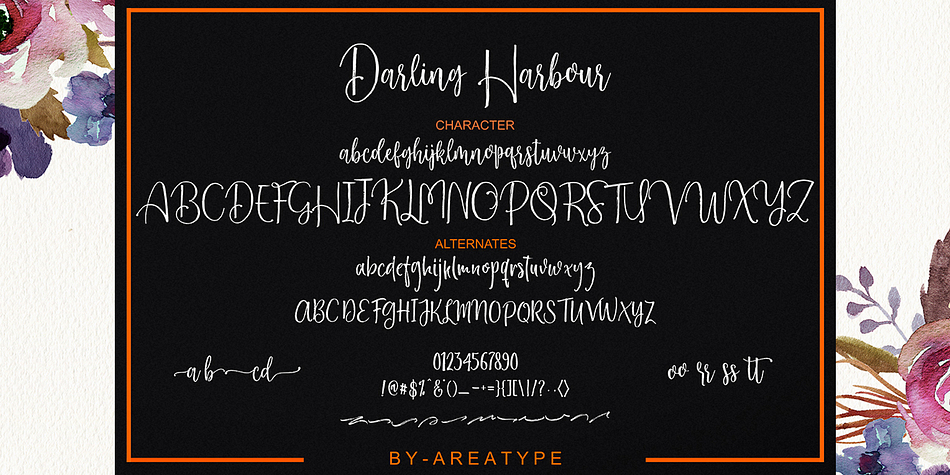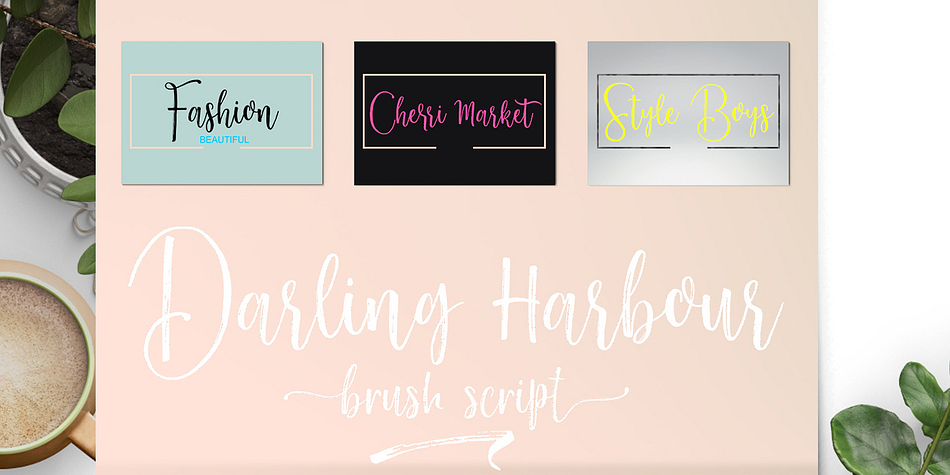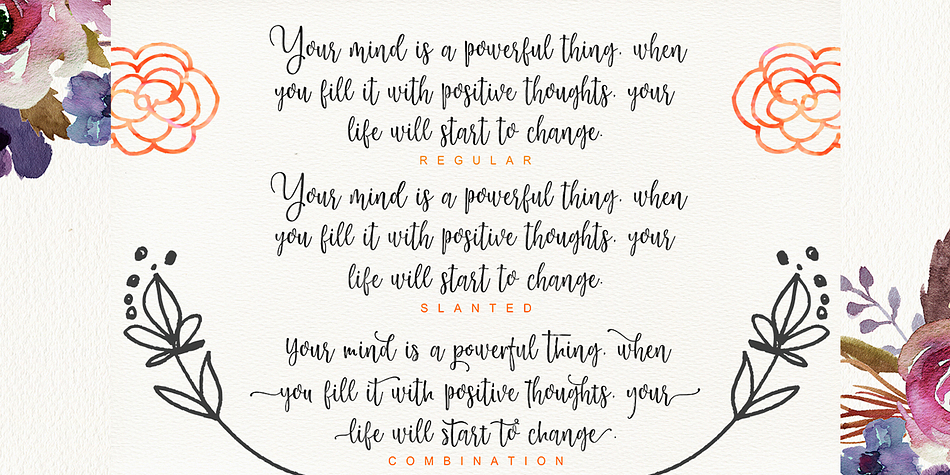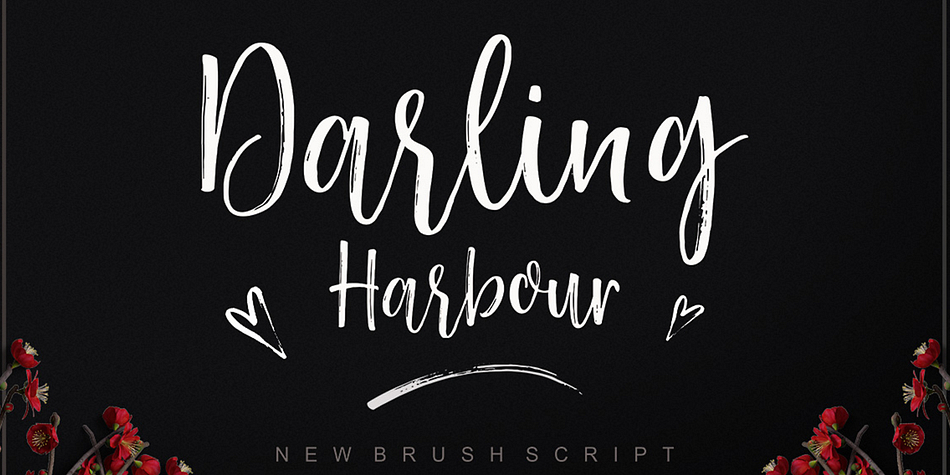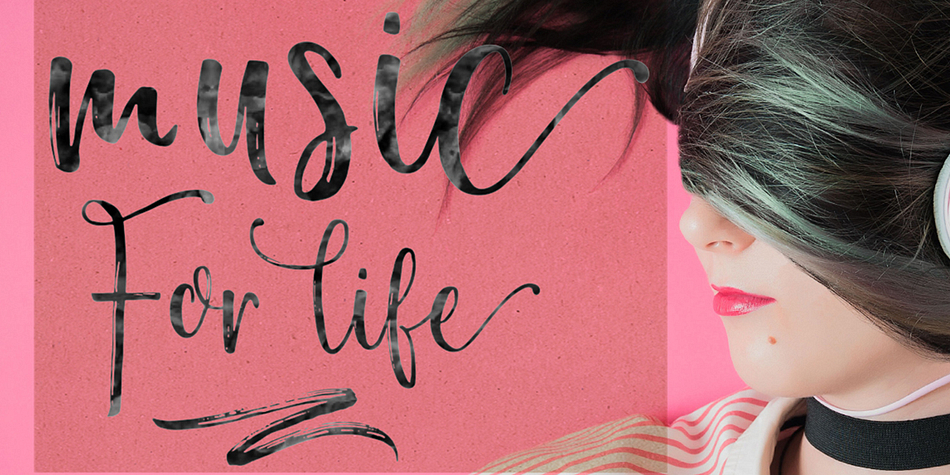
Darling Harbour is a modern calligraphy, script and dingbat font family. This typeface has three styles and was published by Area Type Studio.
Darling Harbour Brush is a modern calligraphy font, with characters that dance along the baseline and elegant touch. Opentype features with stylistic alternates, ligatures and multiple language support.
It can be used for various purposes.such as logos, wedding invitation, heading, t-shirt, letterhead, signage, lable, news, posters, badges etc.